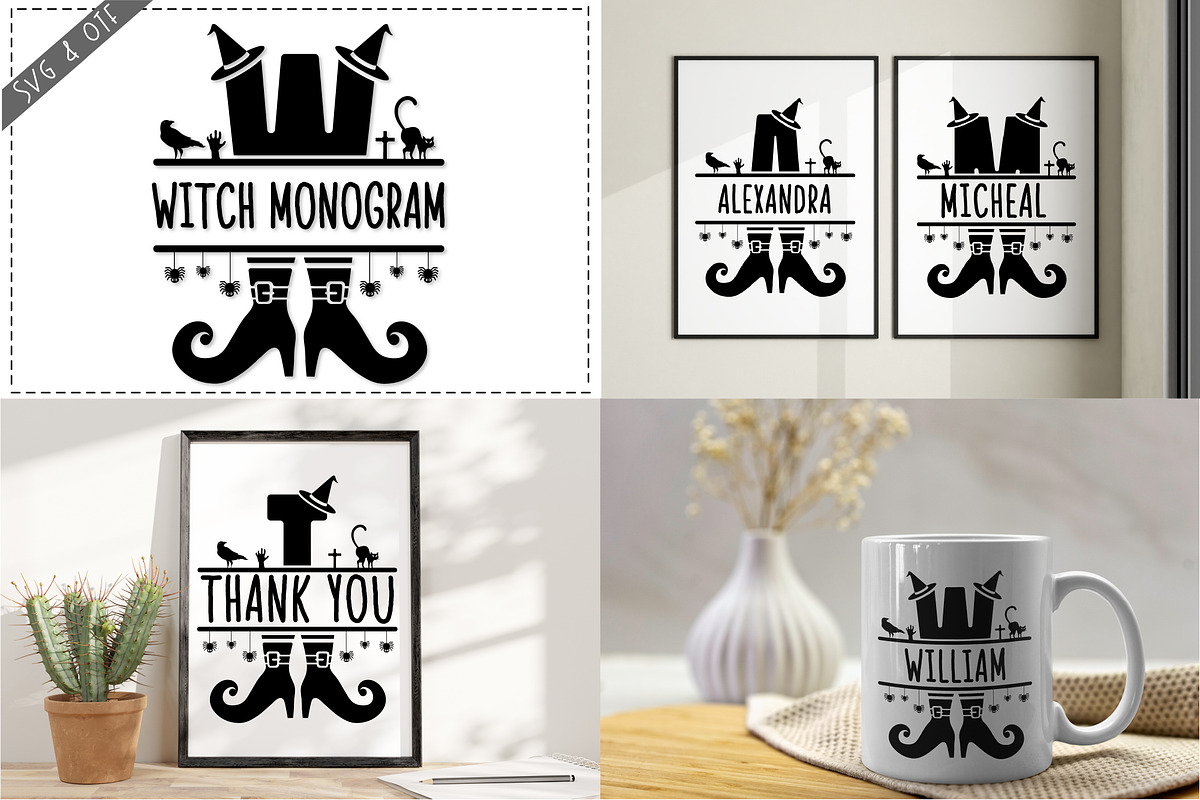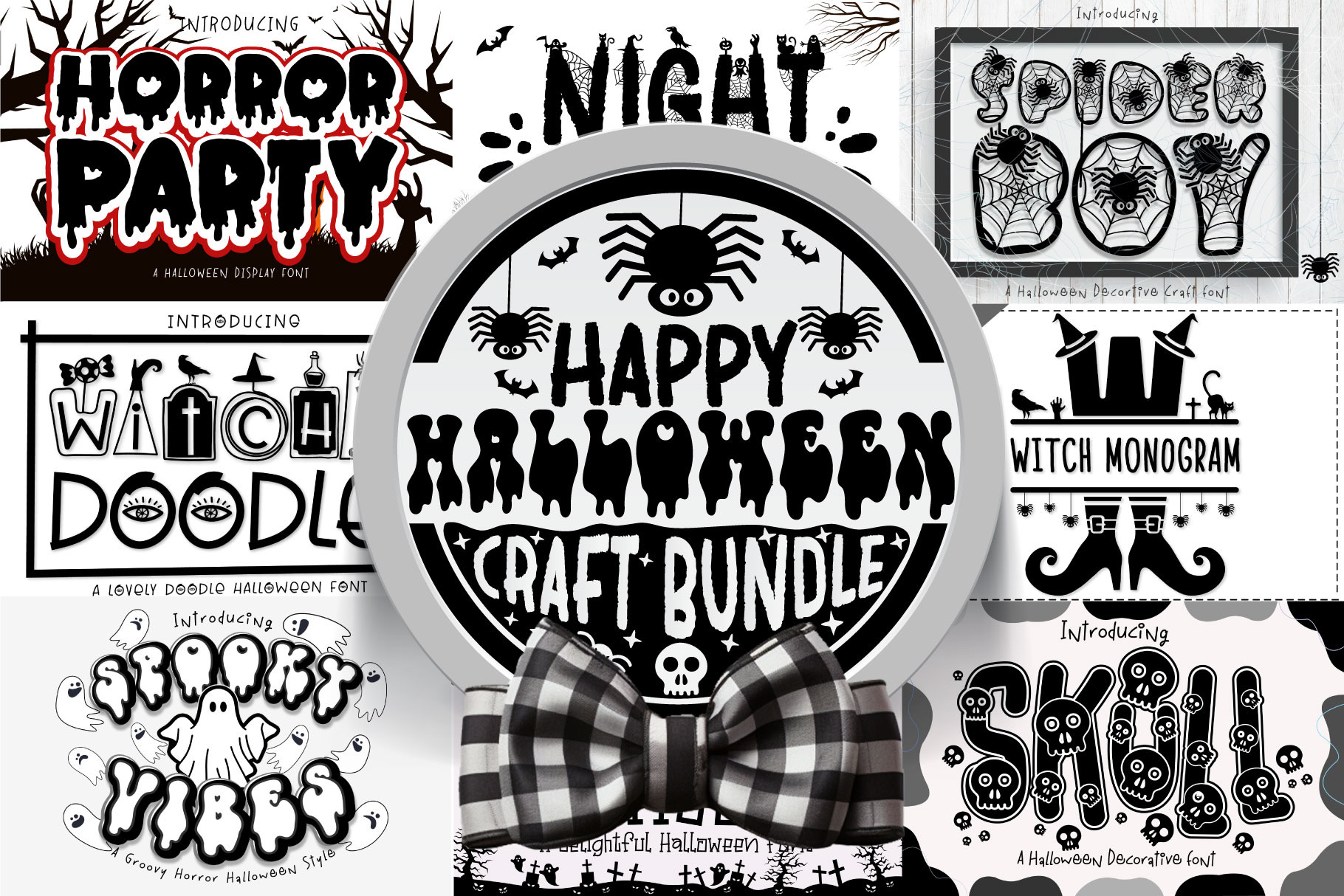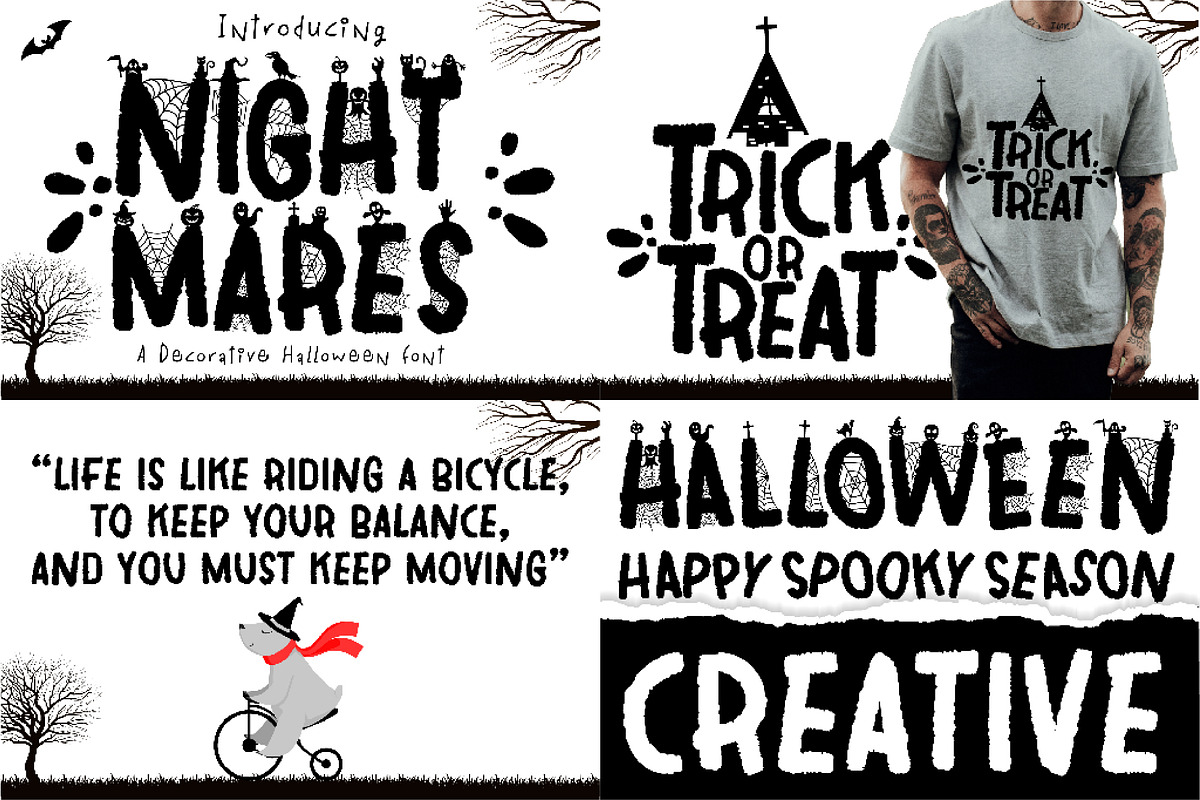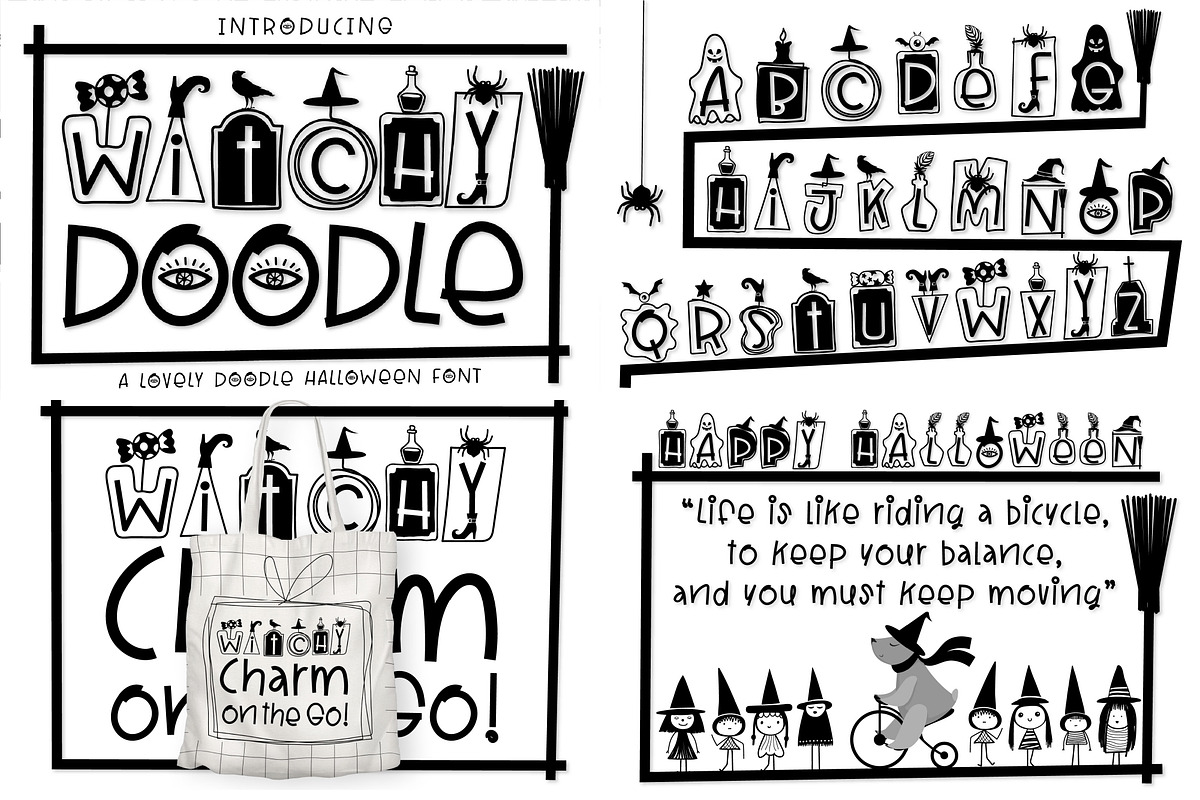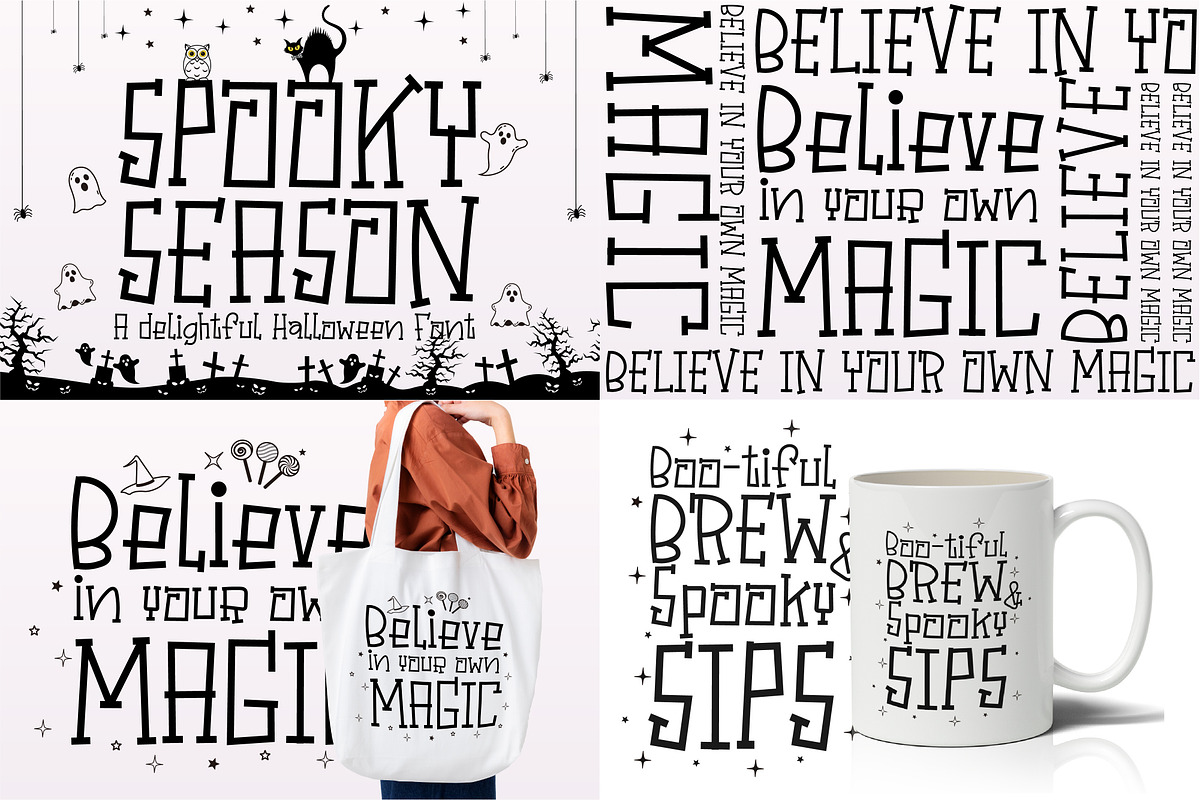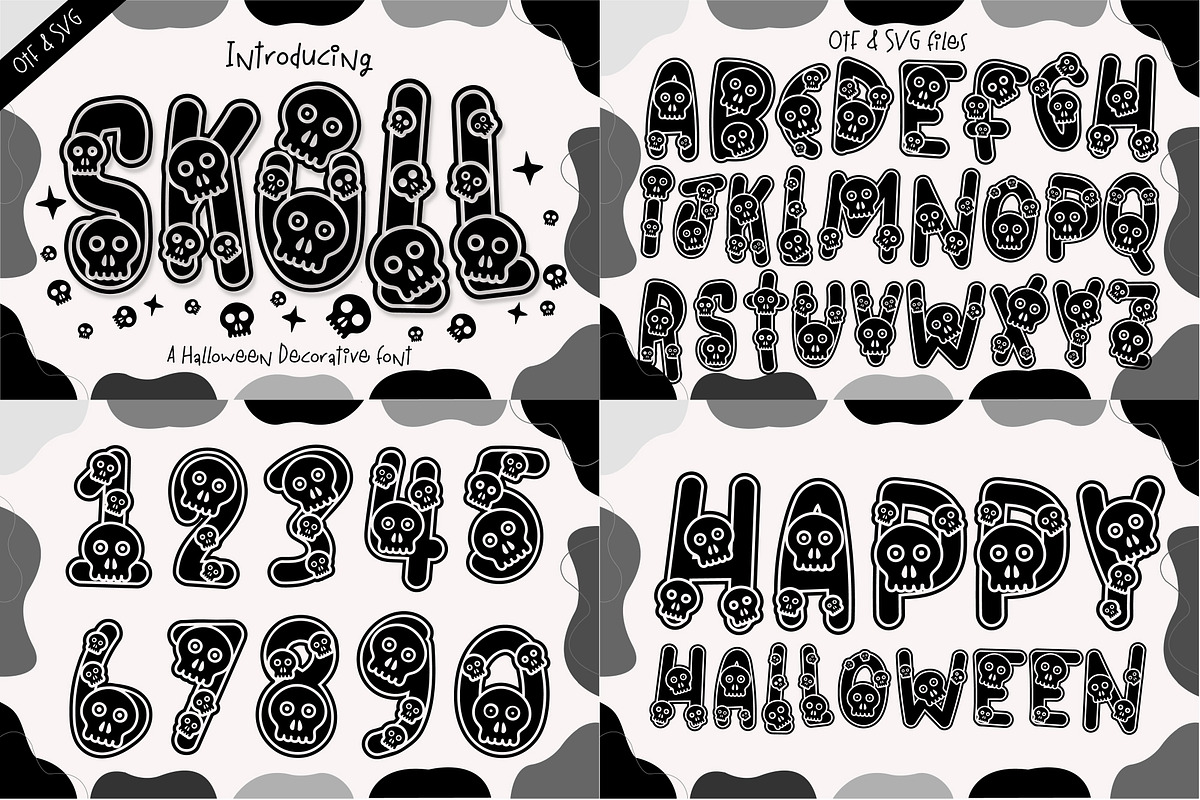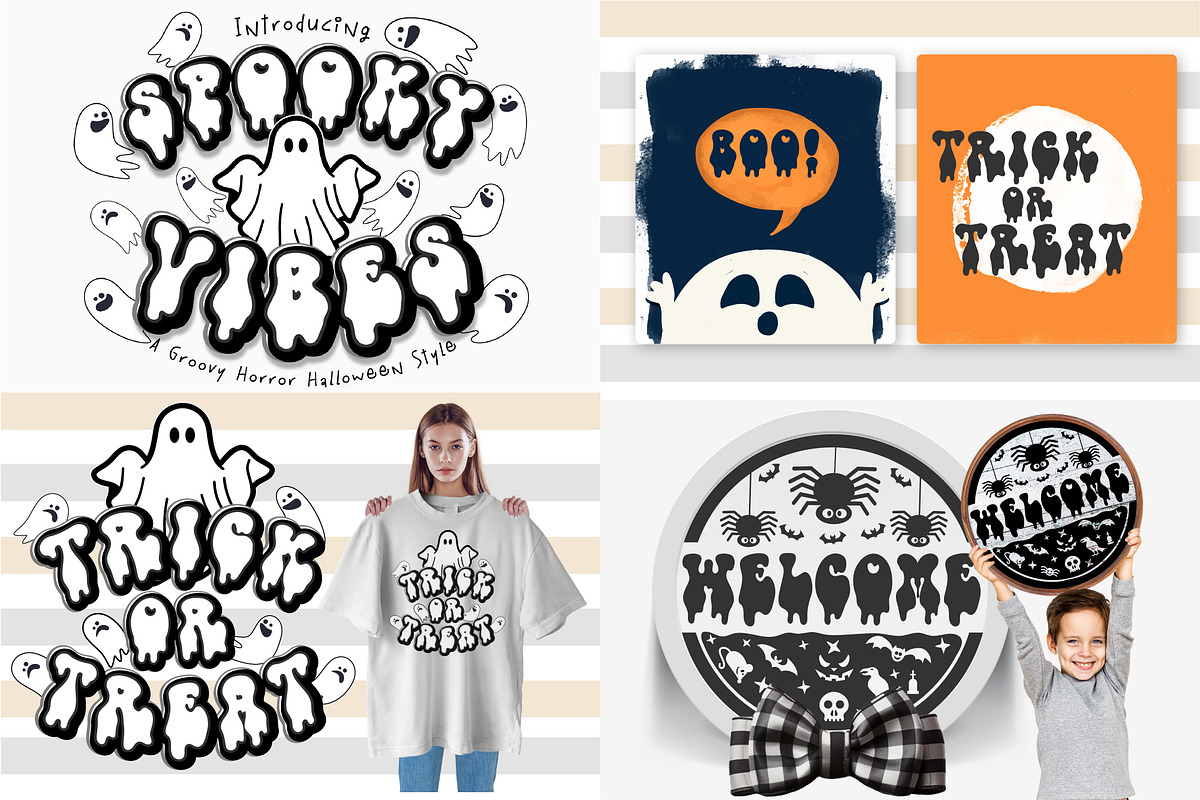
Halloween Craft Font Bundle
Unleash your creativity this Halloween with the Happy Halloween Craft Bundle font! Designed for DIY Halloween craft projects, this font adds a playful and spooky touch to your designs. Craft invitations, decorations, and more with ease, as this font perfectly captures the spirit of the season. Transform your projects into spooktacular delights that will enchant both kids and adults alike.